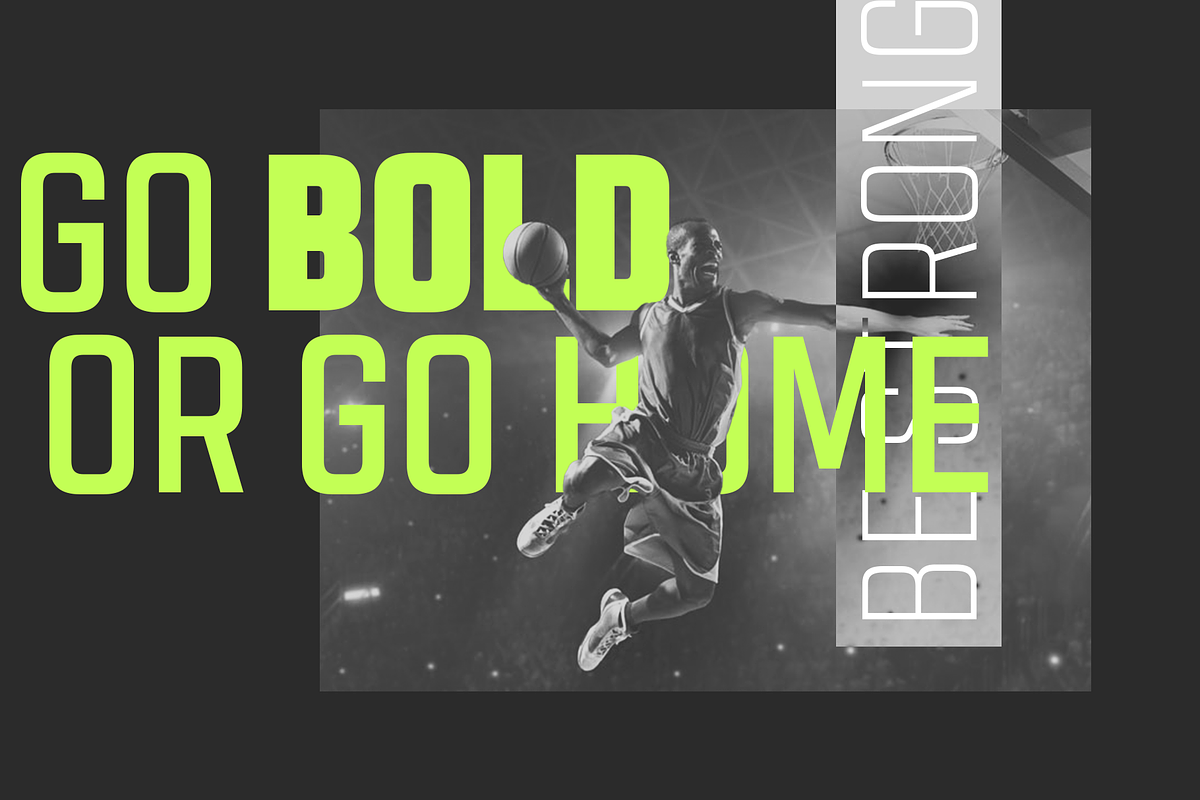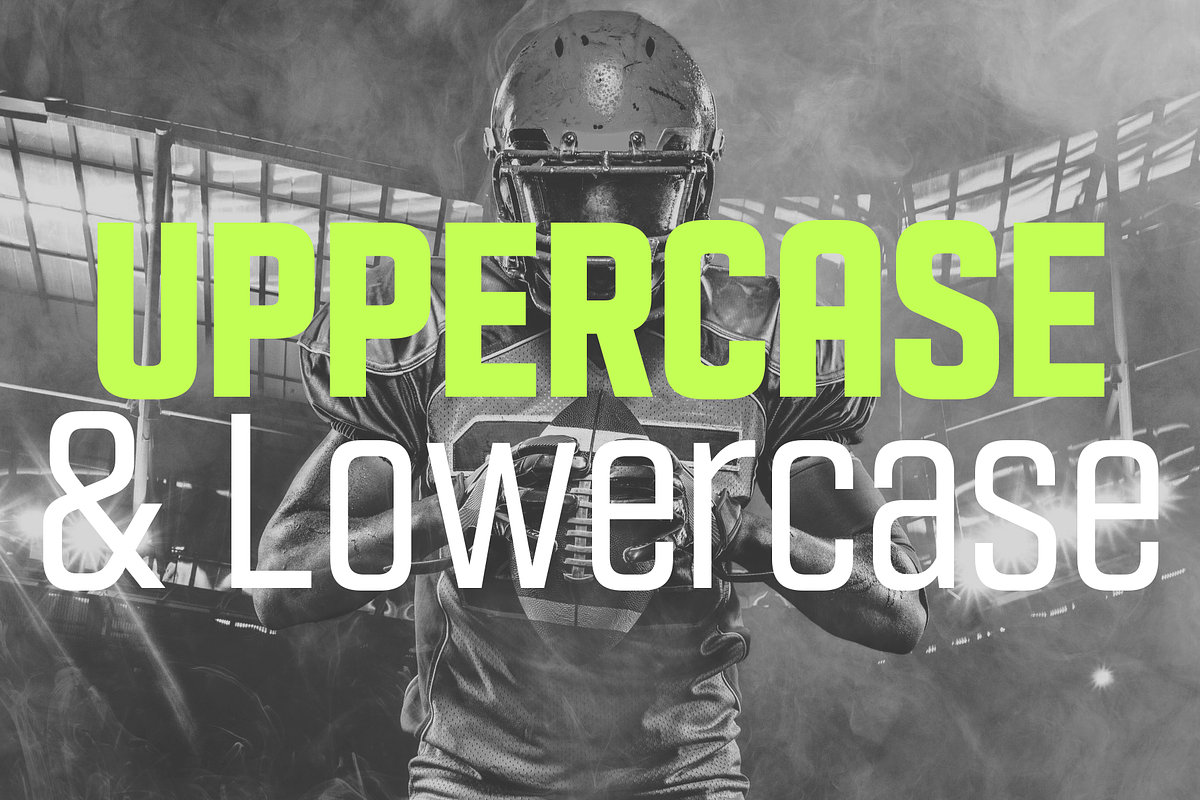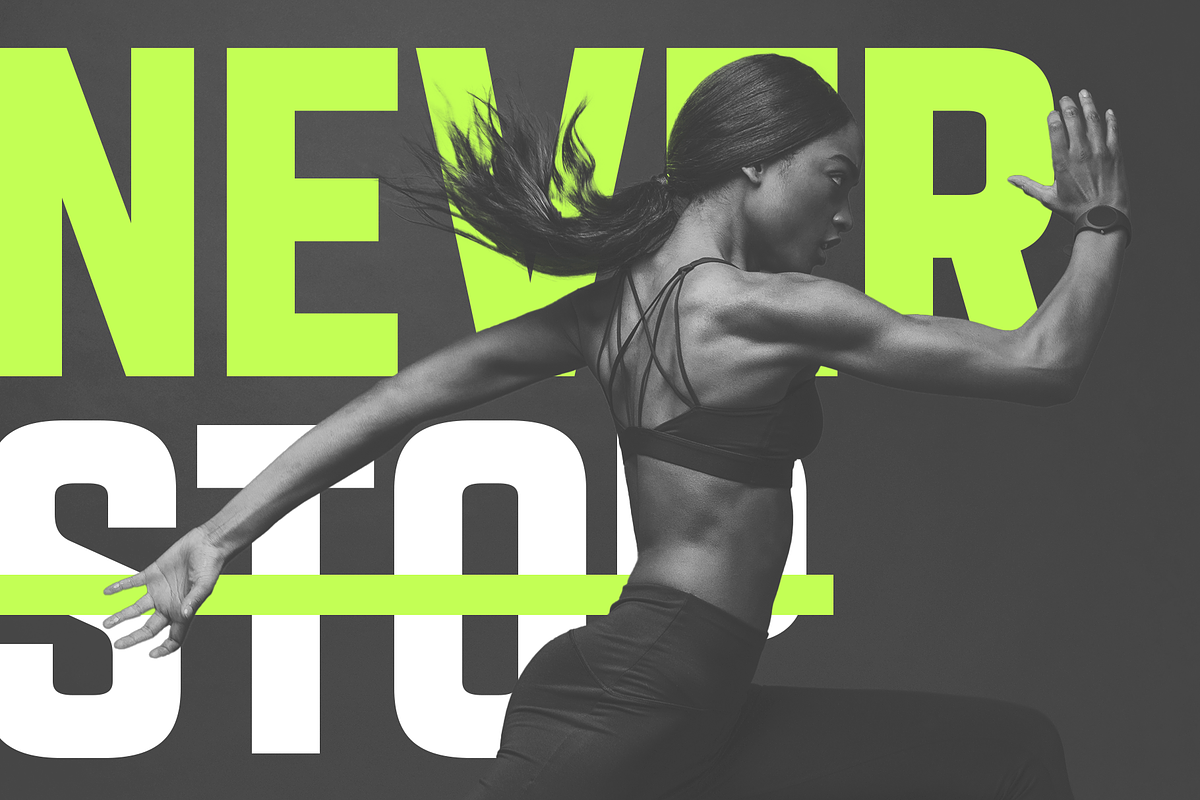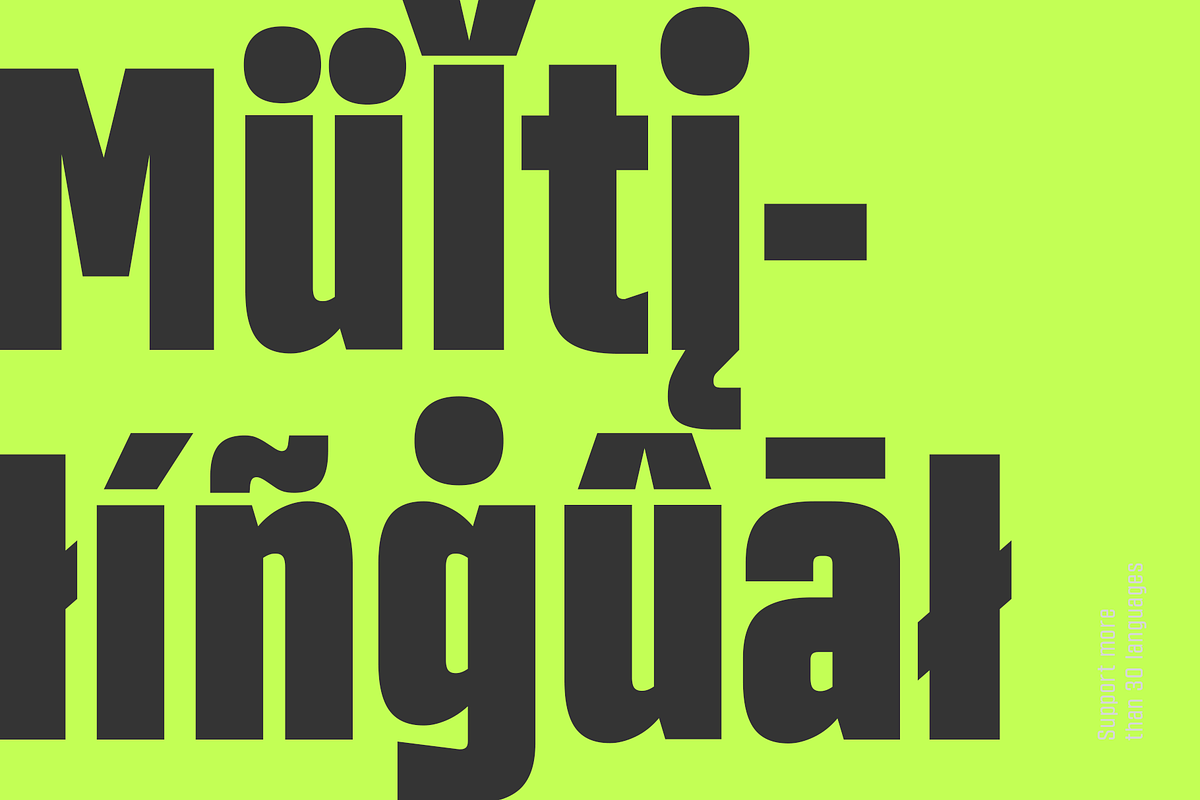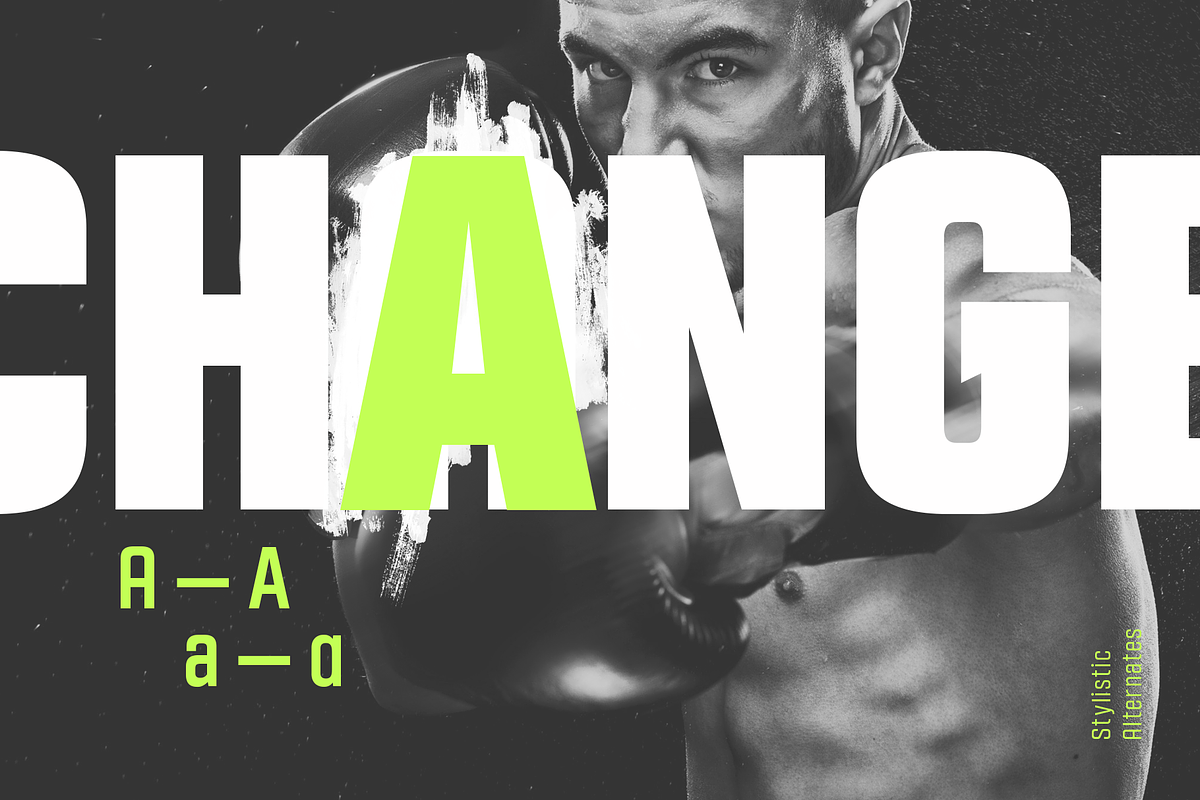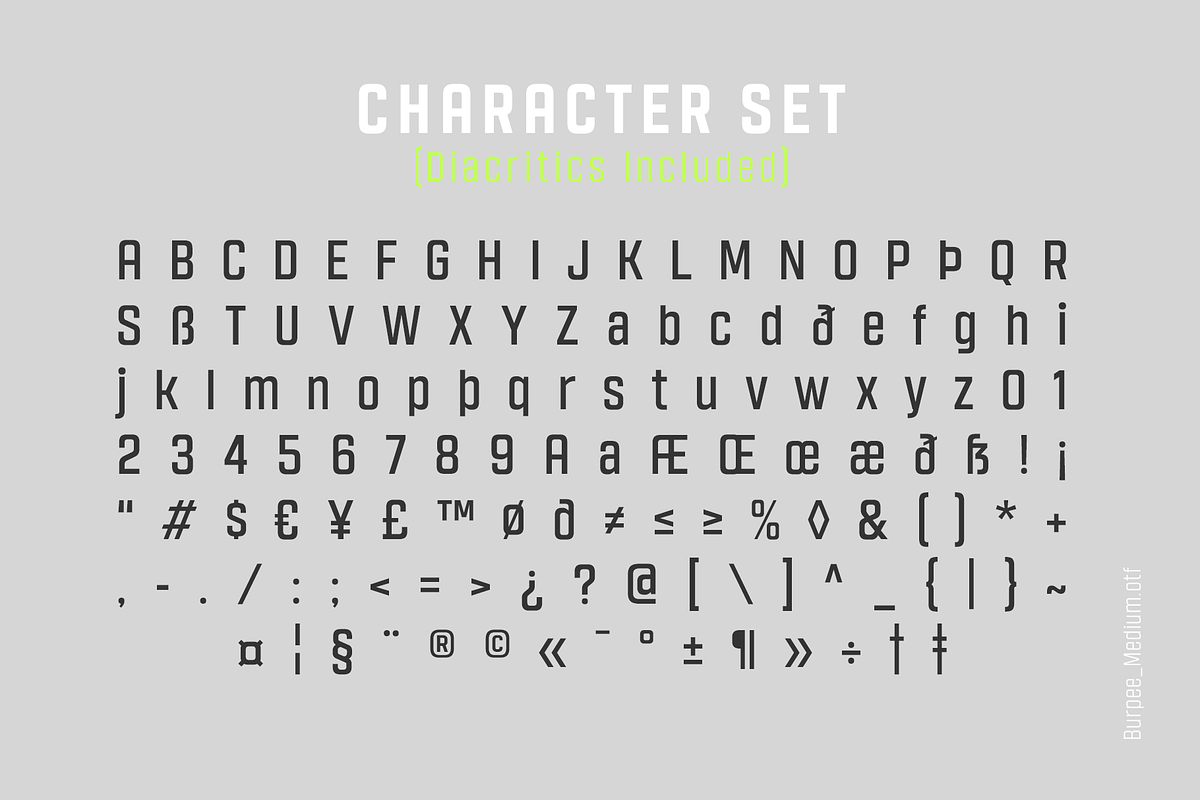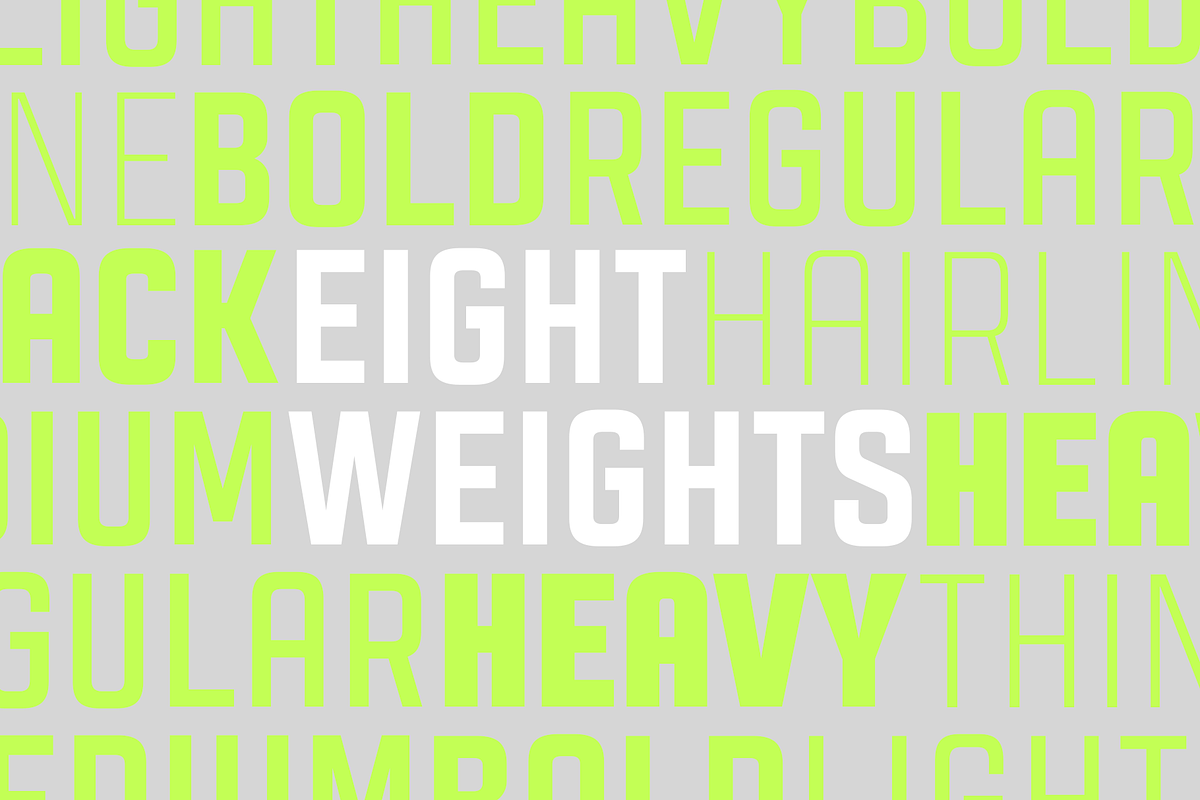
Burpee Sans Condensed Typeface
Burpee is a variable condensed sans typeface, designed for headlines that needs be powerful and punchy, Burpee is inspired in sports, looking for a visual impact that get the attention.
Burpee Sans Condensed Typeface by YockMercado fits naturally into Branding, posters, packaging, typography.